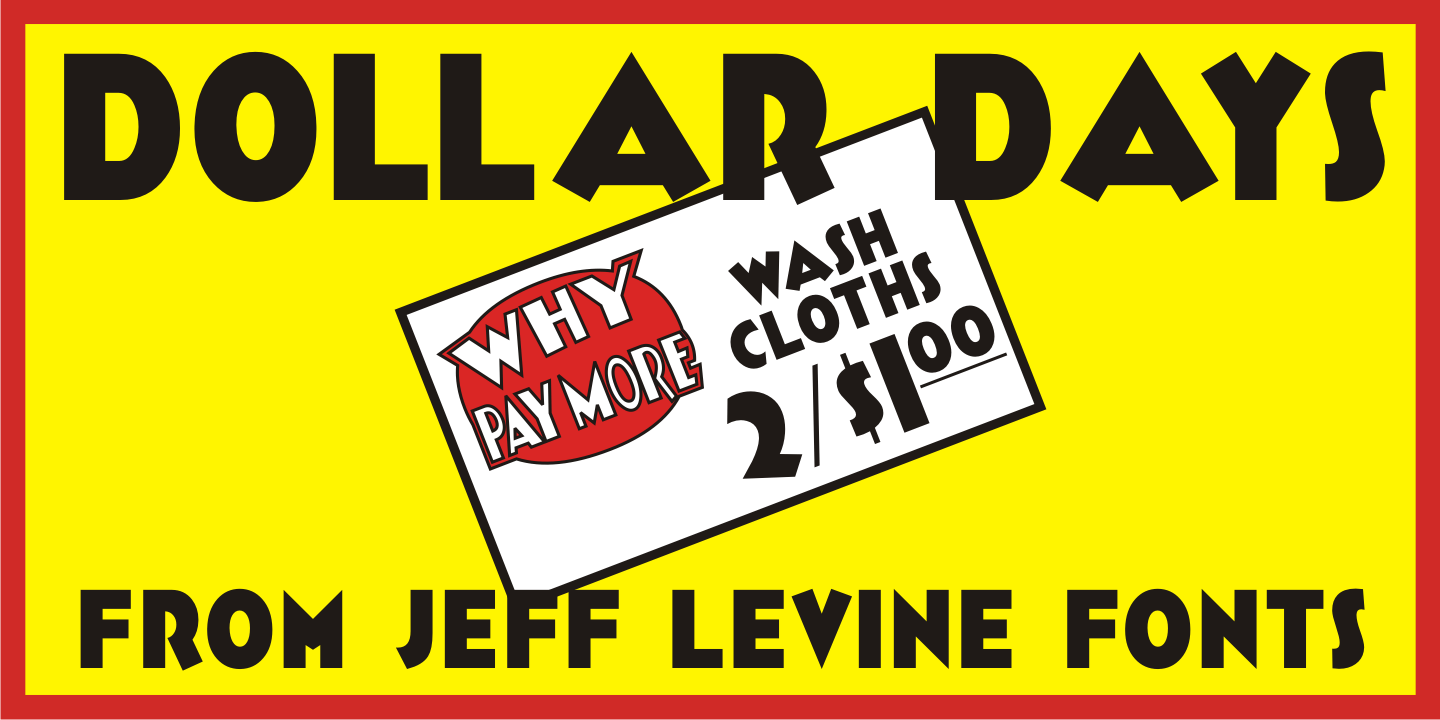
Dollar Days
Dollar Days JNL is based on a type design found in a 1930s catalog from the National Sign Stencil Company.
The National Show Card Writer sign making set contained many different sizes and styles of lettering stencils, and additional type designs could be purchased as add-ons.
This product was one of the many economical ways merchants, religious organizations, schools and others could make their own signs at low cost.